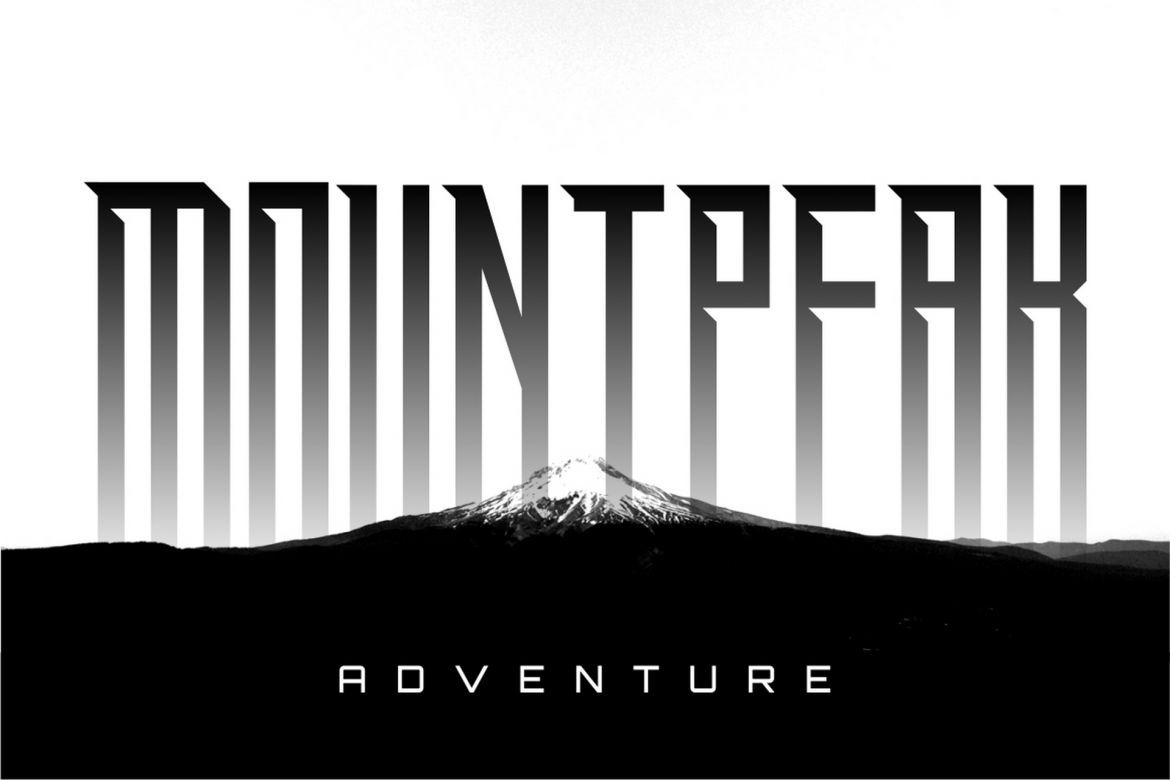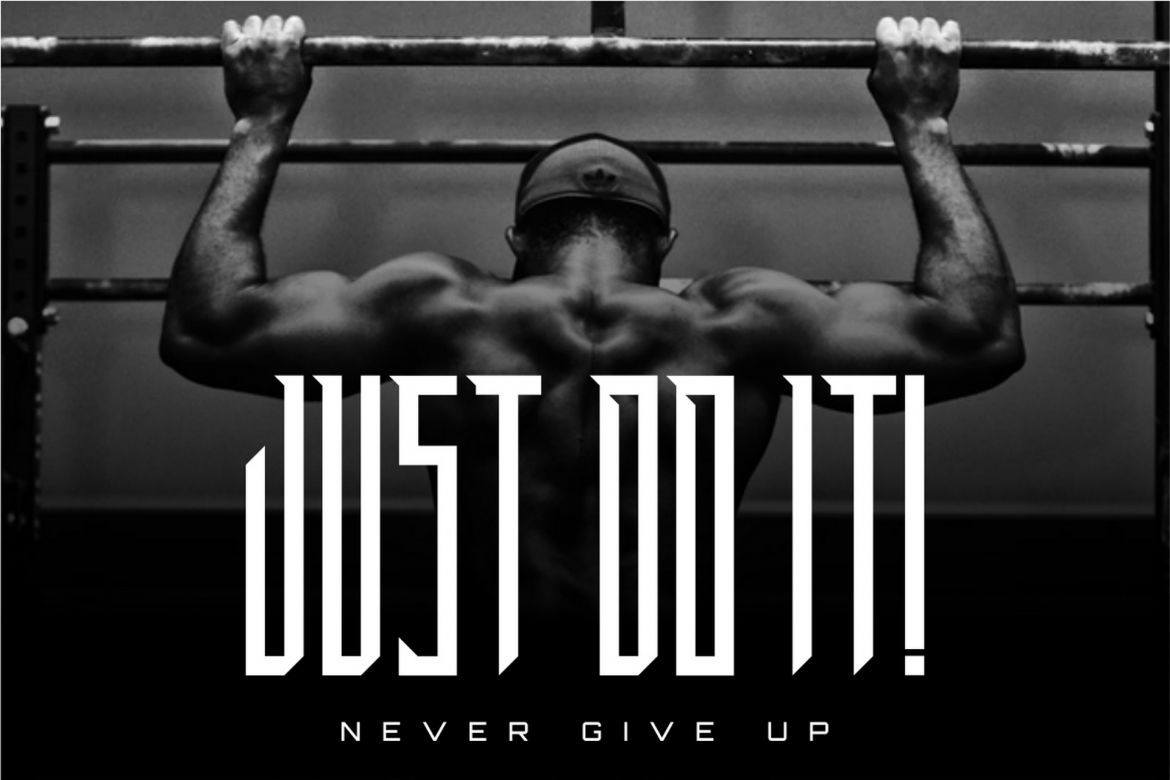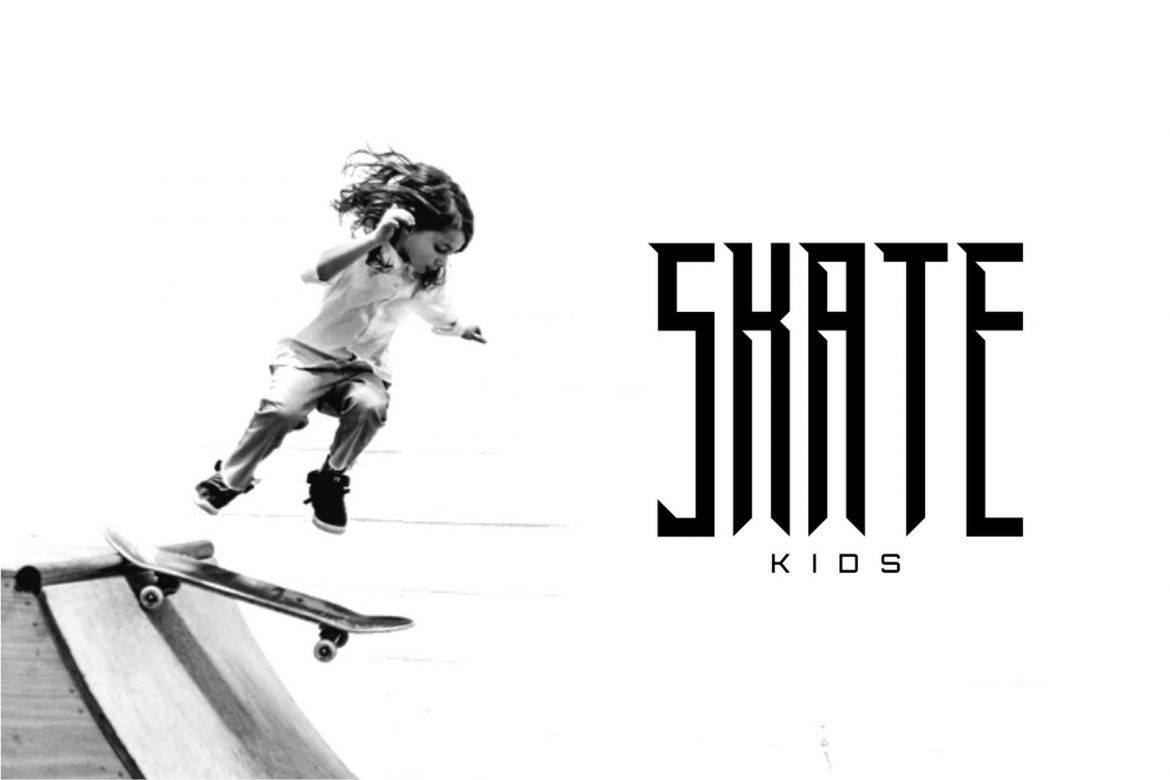
Armor Display Font
Introducing "ARMOR" a powerful condensed display font with sharp end and geometric look. ARMOR best uses for sport, branding, poster, logos, header, apparel design and many more.